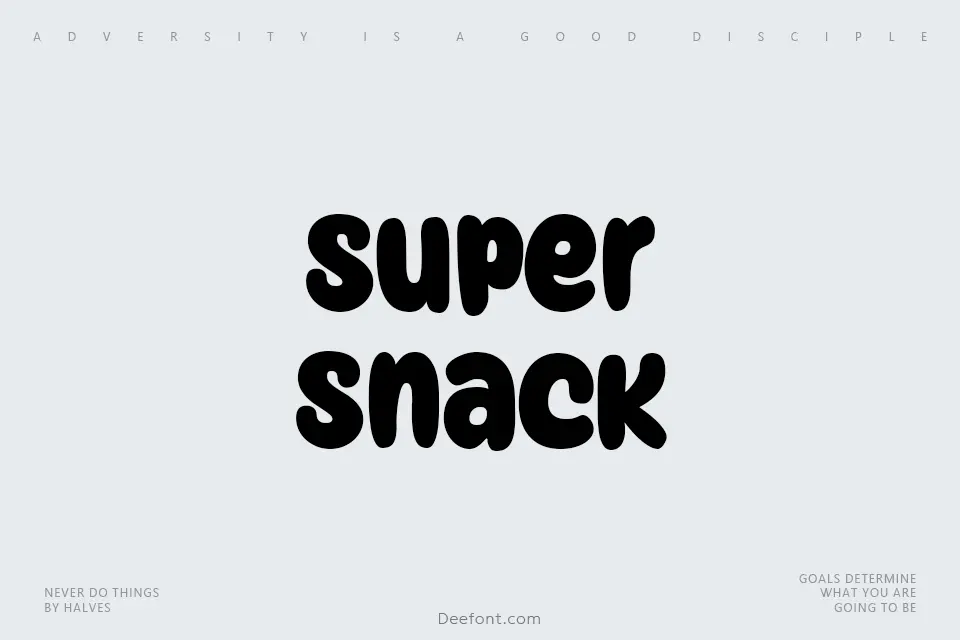
Super Snack Font
Super Snack Font is a bold, playful typeface designed to inject energy into food branding and creative projects. Its chunky letterforms feature exaggerated curves and rounded edges, evoking the whimsical appeal of candy wrappers and snack packaging. The font’s high-contrast strokes and compact spacing create a dynamic visual impact, ideal for logos, menus, posters, and product labels. With its friendly yet attention-grabbing aesthetic, it balances retro diner vibes with modern simplicity. The clean vector architecture ensures crisp scaling for both digital and print applications. Perfect for businesses targeting youth markets or anyone seeking to add a deliciously fun twist to designs. Free for personal use, with commercial licenses available for branding projects.